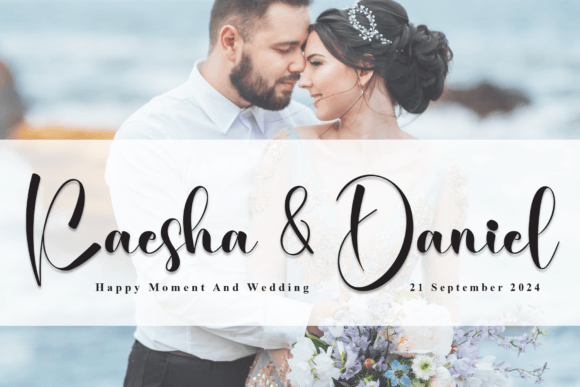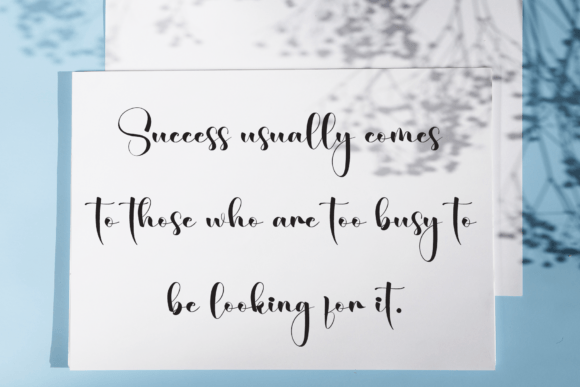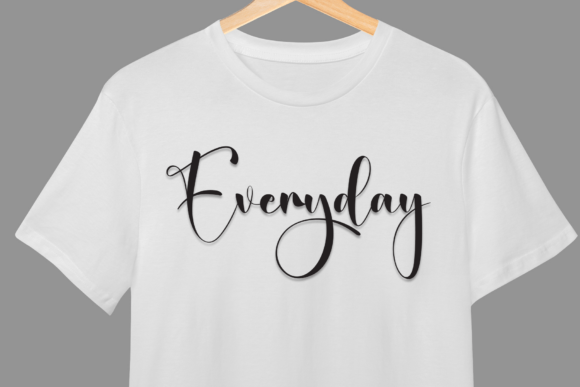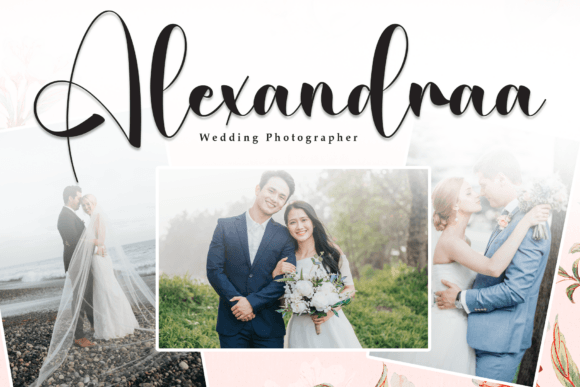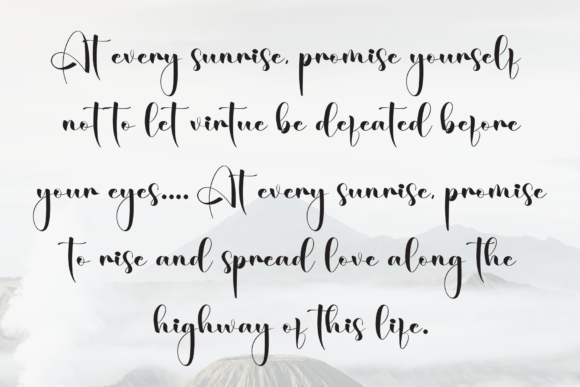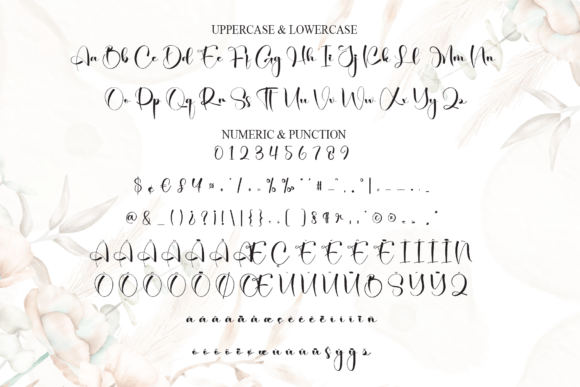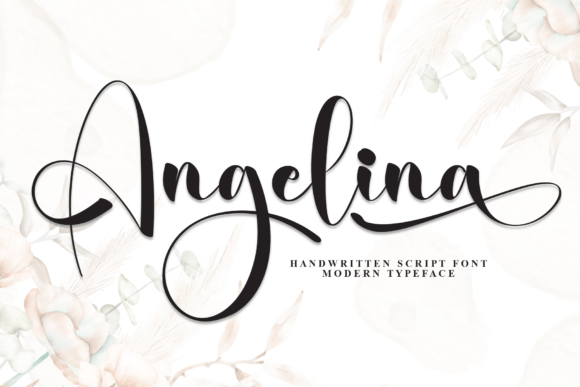
Introducing Angelina Font: Elevate Your Designs with Elegance and Charm
In the world of typography, few fonts manage to capture the essence of elegance and charm as effectively as Angelina. This beautiful handwritten font is a masterful blend of bold and thin lines, creating a unique visual appeal that is both captivating and versatile. Whether you’re a designer looking for the perfect typography for your next project or a crafter seeking to add a personal touch to your creations, Angelina is an exceptional choice.
The Unique Characteristics of Angelina Font
Angelina’s distinctive feature is its combination of bold and thin lines, which gives it an elegant and sophisticated look. This contrast adds a dynamic quality to the font, making it stand out in any design. The bold strokes provide a sense of confidence and strength, while the thin lines add a touch of delicacy and finesse. This blend of contrasting elements results in a font that is not only visually appealing but also highly versatile.
Perfect for Invitations, Quotes, and Creative Designs
Angelina’s elegant style makes it an ideal choice for a variety of design projects. For those looking to create stunning invitations, this font offers a level of sophistication and charm that is hard to match. Whether it’s a wedding invitation, a birthday party invite, or any other special occasion, Angelina adds a touch of class and elegance. Additionally, its unique blend of bold and thin lines makes it perfect for highlighting quotes, phrases, or any text that you want to stand out.
Adding a Personal Touch to Your Designs
One of the key benefits of using Angelina is the personal feel it brings to your designs. In an era where digital content dominates, adding a human touch to your typography can make your work stand out. Angelina’s handwritten nature gives your text a charming and personal feel, making it more relatable and engaging to your audience. This is particularly beneficial for crafters and artists who sell their work online or in local markets, as it helps to create a unique brand identity.
Angelina’s versatility is another one of its strong suits. This font can be used across a wide range of design applications, from digital projects like website headers, social media graphics, and email newsletters, to print materials such as brochures, posters, and business cards. Its legibility and aesthetic appeal make it suitable for both headings and body text, offering designers a flexible tool that can adapt to various design needs.
Tips for Maximizing the Impact of Angelina Font
- Combine with Images: Pair Angelina with high-quality images or illustrations to create visually striking designs. The font’s elegance will complement the visuals, enhancing the overall impact of your design.
- Experiment with Colors: Don’t be afraid to experiment with different colors to find the perfect match for your design. Angelina looks stunning in both classic black and vibrant colors, offering you a wide range of creative possibilities.
- Mix and Match: Consider combining Angelina with other fonts to create contrast and hierarchy in your design. Its unique style pairs well with both serif and sans-serif fonts, allowing for a lot of creative freedom.
Angelina is more than just a font; it’s a design element that can elevate your projects with its elegance and charm. Its unique blend of bold and thin lines, coupled with its versatile nature, makes it an excellent choice for designers and crafters alike. Whether you’re looking to create stunning invitations, impactful quotes, or any other design that requires a touch of sophistication, Angelina is sure to exceed your expectations. Embrace the beauty of Angelina in your next project and experience the difference it can make.